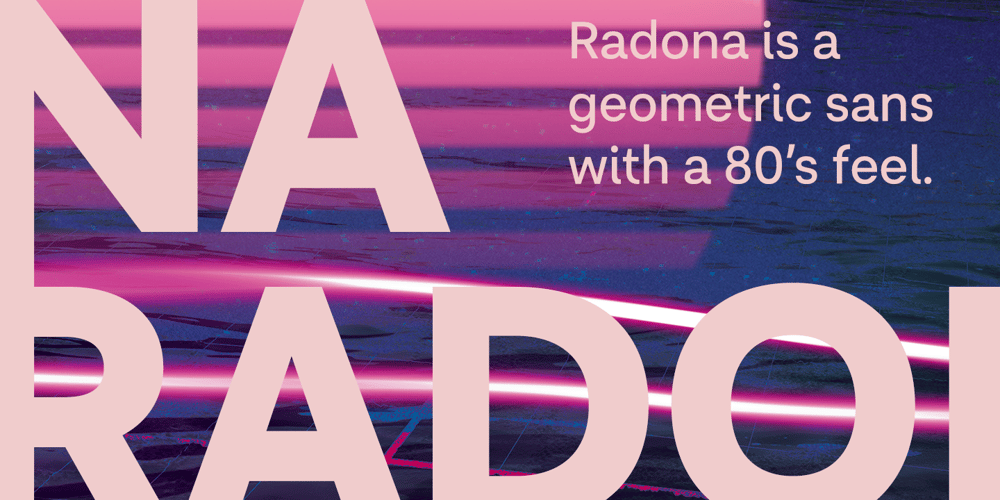
Radona Font Family was designed by Jeremy Dooley and published by insigne. Radona contains 54 styles and family package options. Radona is a blast from the 80’s that’s rader than rad. Radona is the typeface version of Synthwave, an electronic music subgenre that takes influence from the 1980s but builds on it, resulting in a construct that lives in the minds of both those who have experienced it and those who haven’t. Radona expresses a nostalgia for 1980s culture, attempting to replicate and appreciate the era’s vibe, but extends it further with something new. This sans family has plenty of 80’s flavor, but with some fresh twists to push it to the limit. Radona is a geometric sans-serif typeface. Radona has a few quirky characteristics, but it has a generally neutral tone and structure that makes it ideal for usage in print, especially when a contemporary look is desired. It looks amazing in both body text and headlines.The geometric grotesques that were popular in the 1980s served as inspiration. It’s a typeface that’s been crafted for usage in a range of design fields, from branding to packaging, and it can be used in anything from interfaces to apps. Radona is an excellent typeface for use on websites and other digital applications. Radona comes with a wide variety of styles and a large selection of stylistic alternatives, ligatures, small caps and other special features.Along with parachute pants, synthesized guitar riffs, and VHS scanlines, Radona brings back the 1980’s.